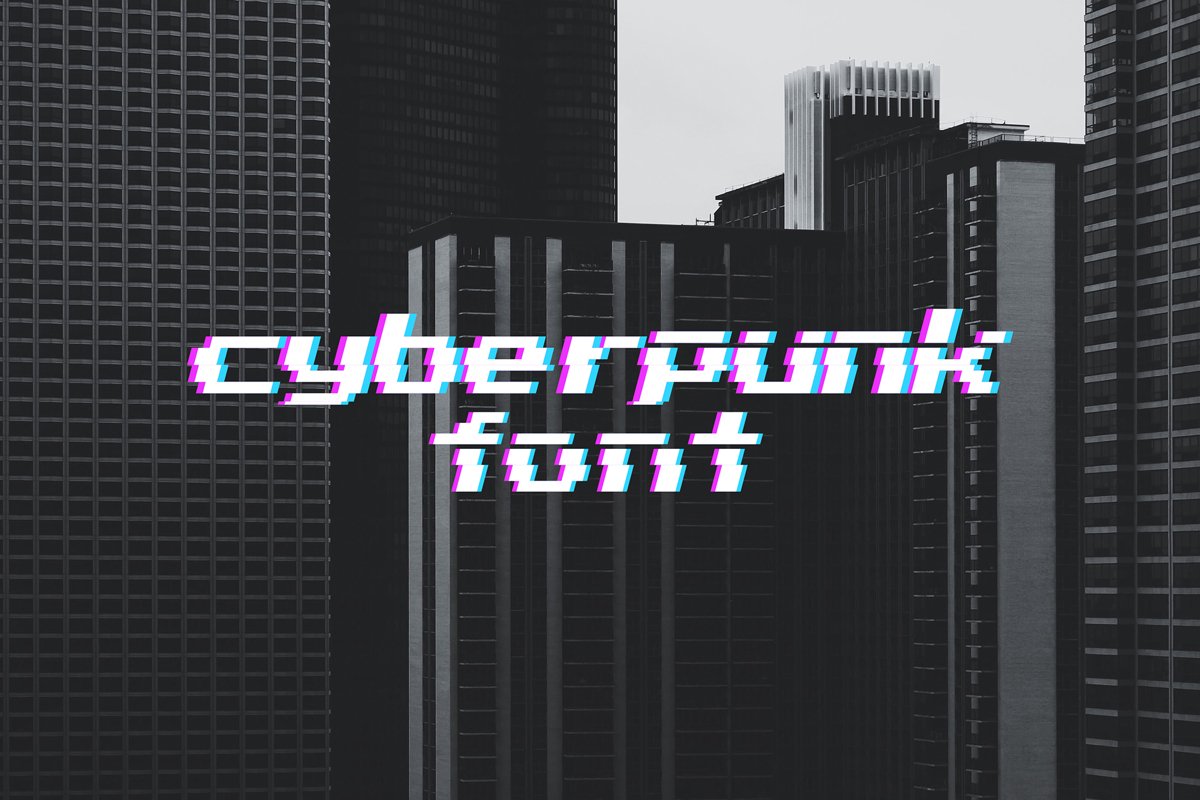
Glitch cyberpunk font / 8-bit fonts / vintage font.
CyberpunkFont-Italic
CyberpunkFont
• Glitch and error fonts from squares, 8 bit, 16 bit letters and numbers for your design. Two different fonts provide an opportunity to choose a more suitable design, font with glitch effect and black font, all objects are made in vector format that can be used in any size without loss of quality.